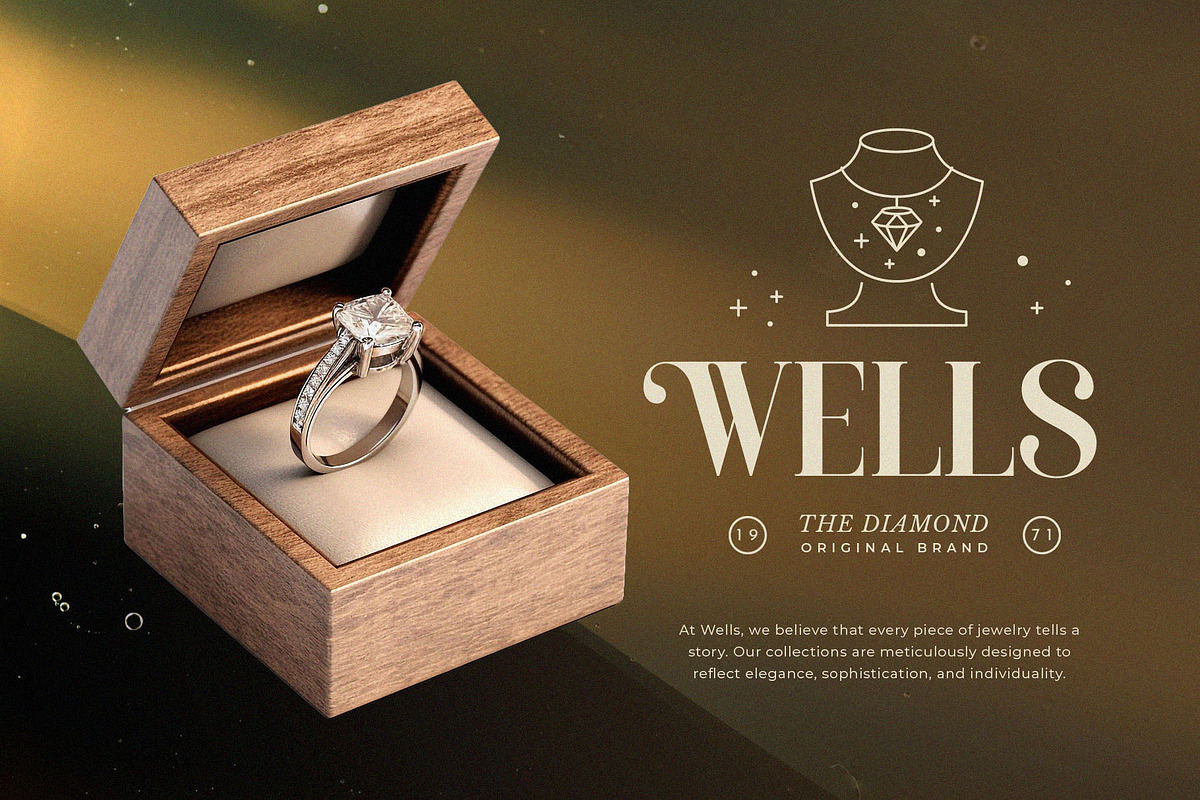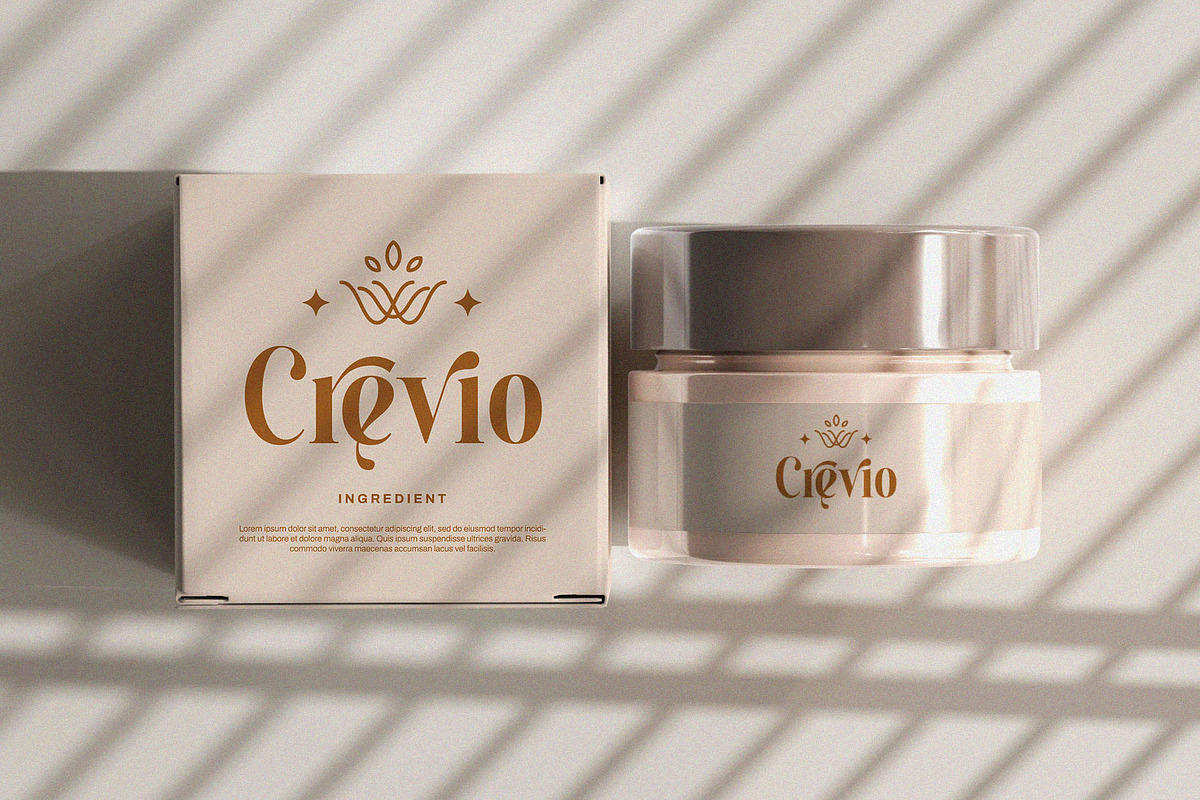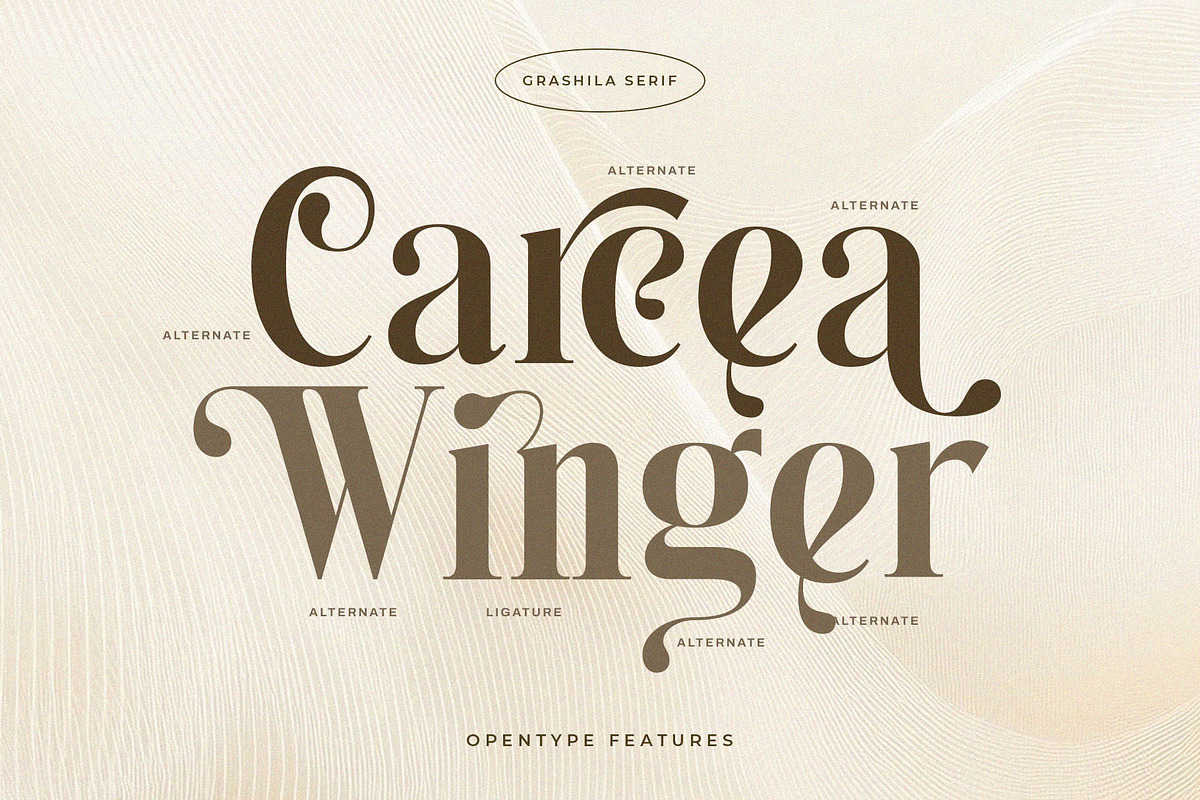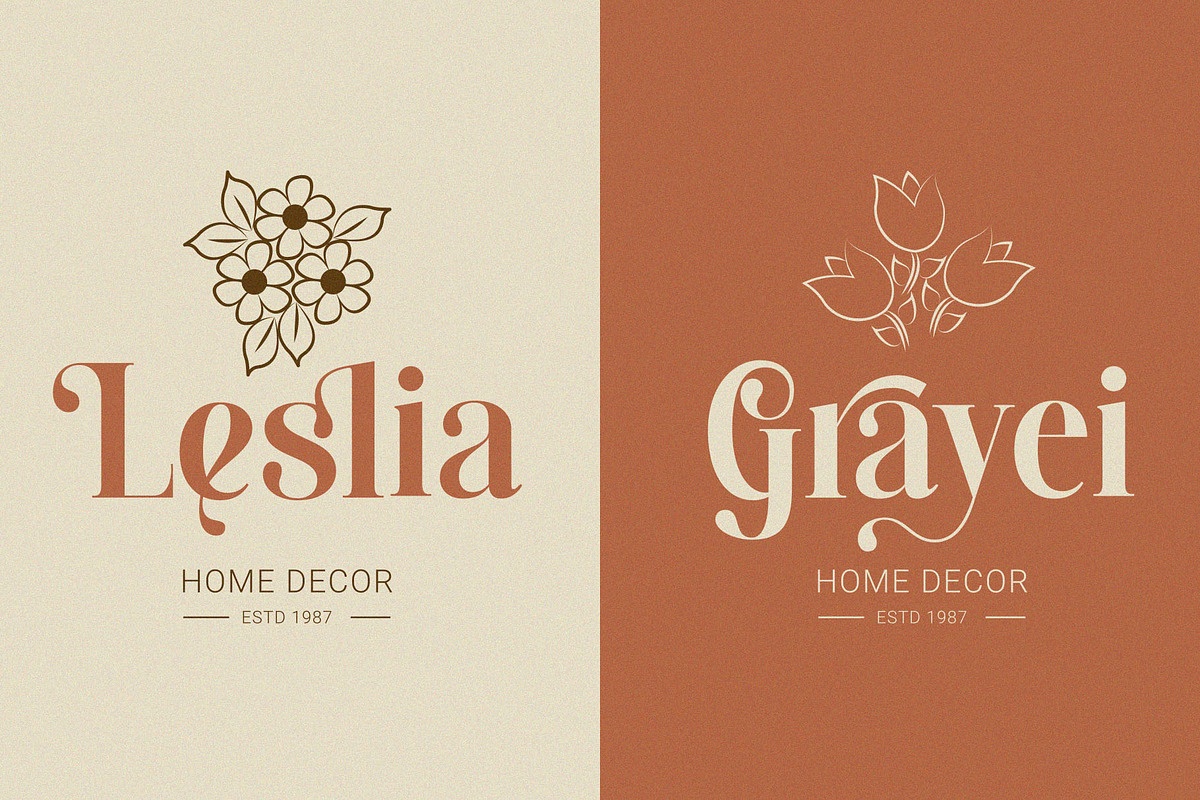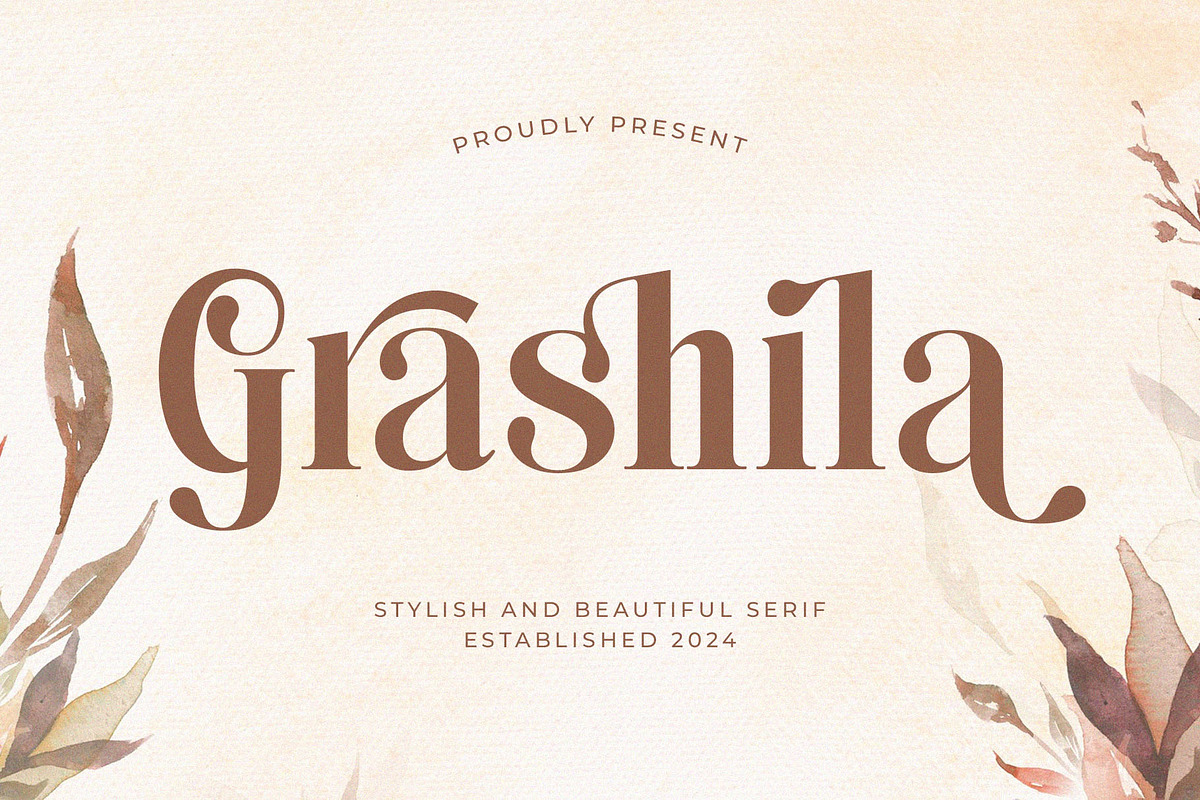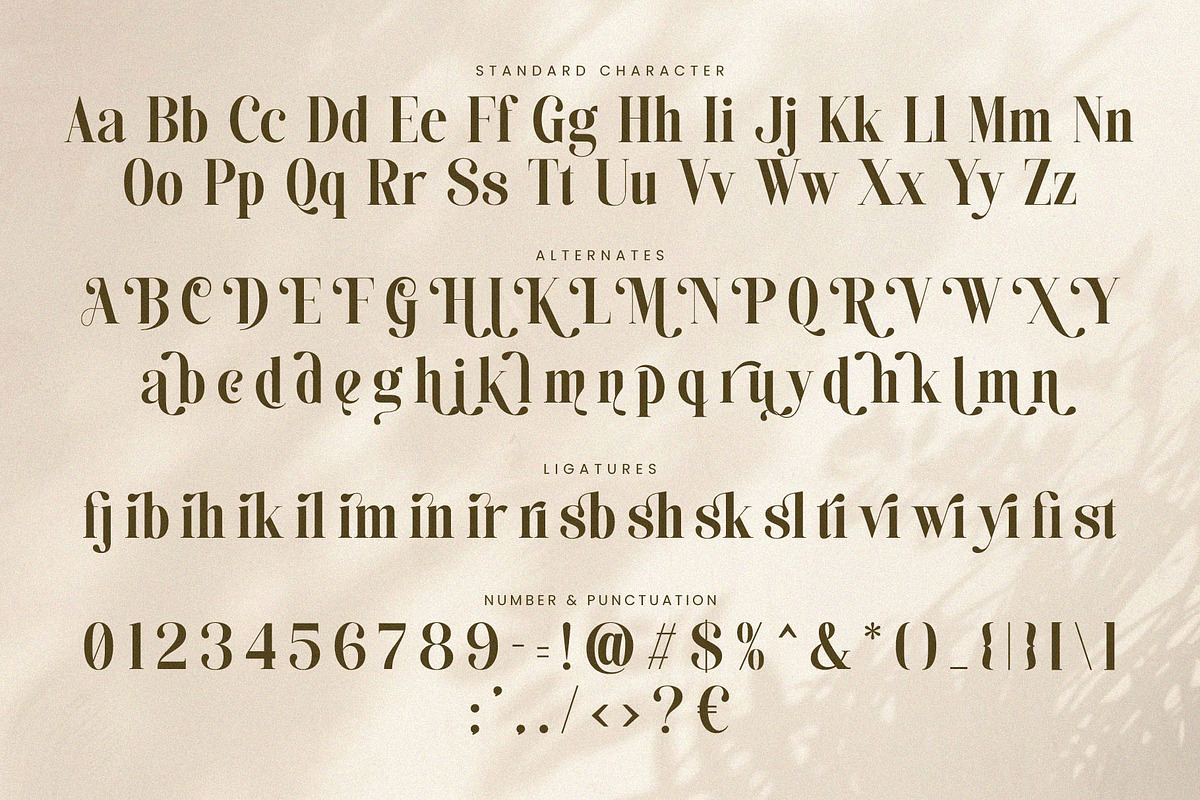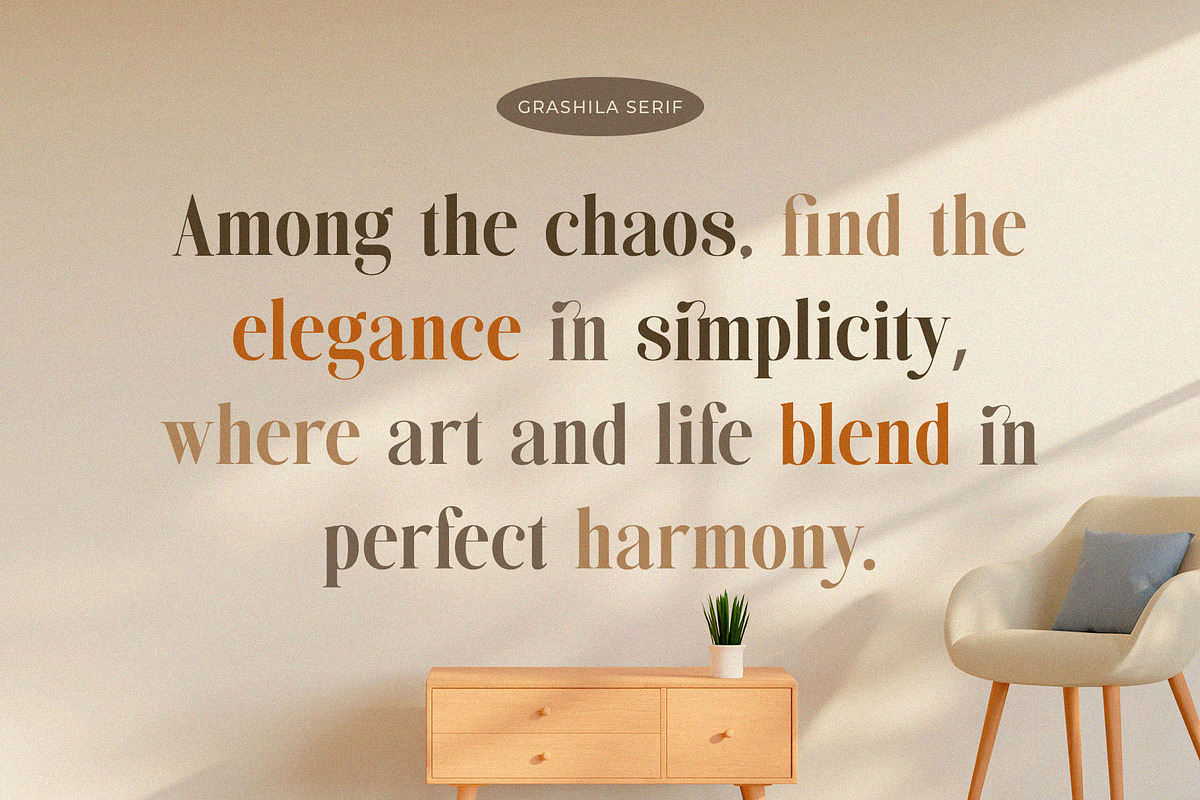
Grashila - Stylish & Beauty Serif
Grashila - Stylish & Beauty Serif Font
Introducing our new "Grashila" unique and modern serif font with elegant style this is perfect for branding, logos, invitation, magazines, product packaging and more.